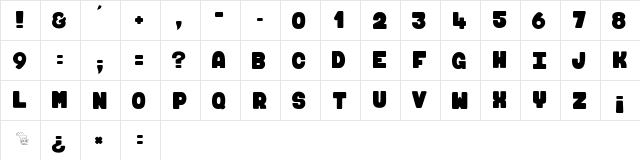
FUGU & MAKI 2 Regular
| Foundry | dcoxy Medina Gregory |
| Designer | dcoxy Medina Gregory |
Design Context for FUGU & MAKI 2 Typeface
FUGU & MAKI 2 offers clean, dependable letterforms without strong stylistic allegiance, making it a practical choice for designers who need flexibility.